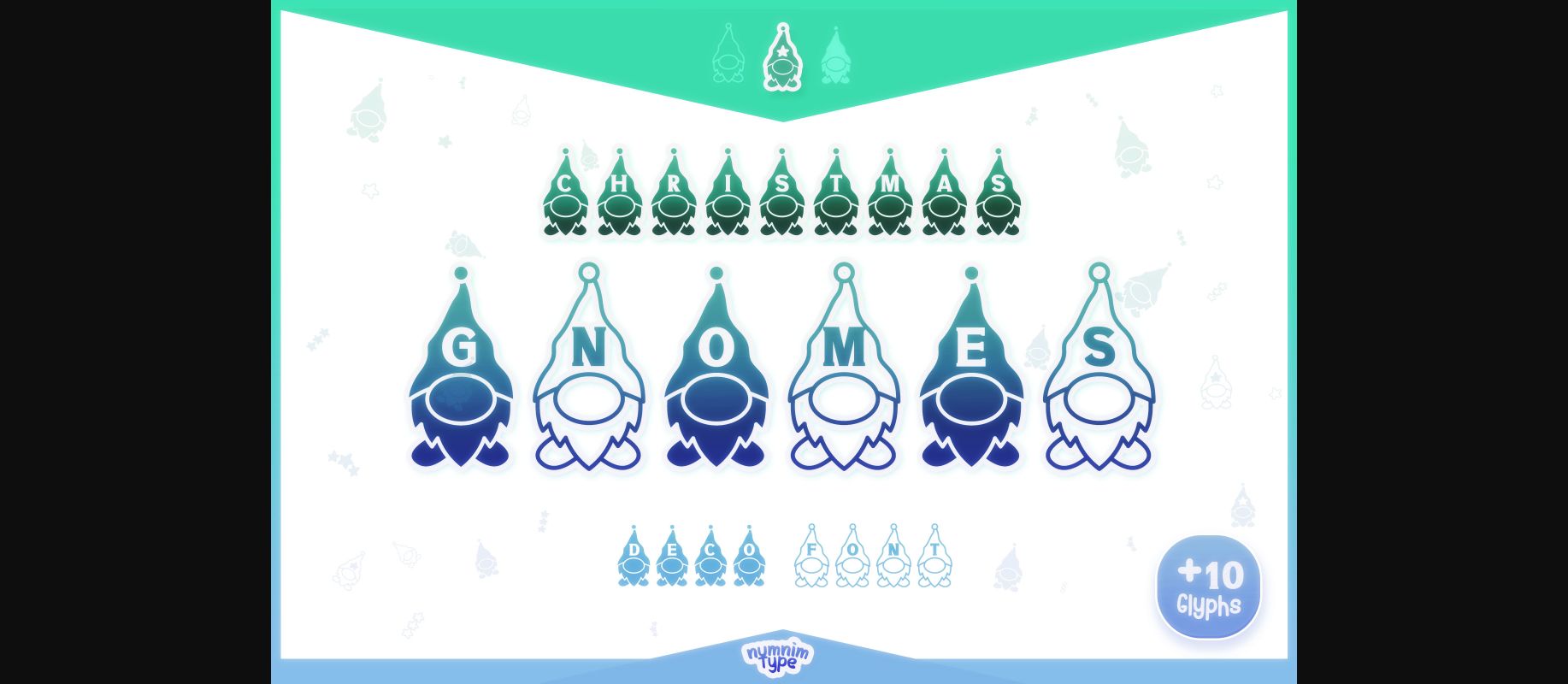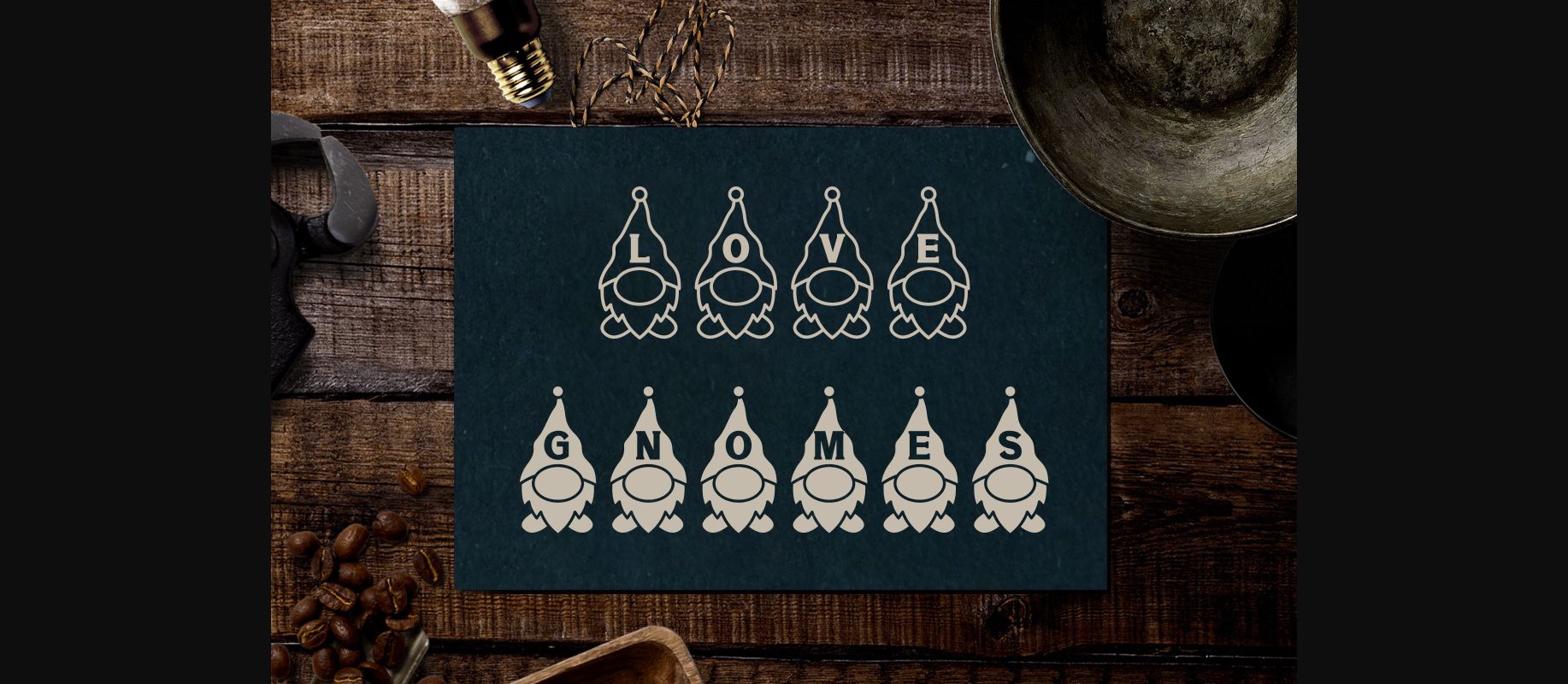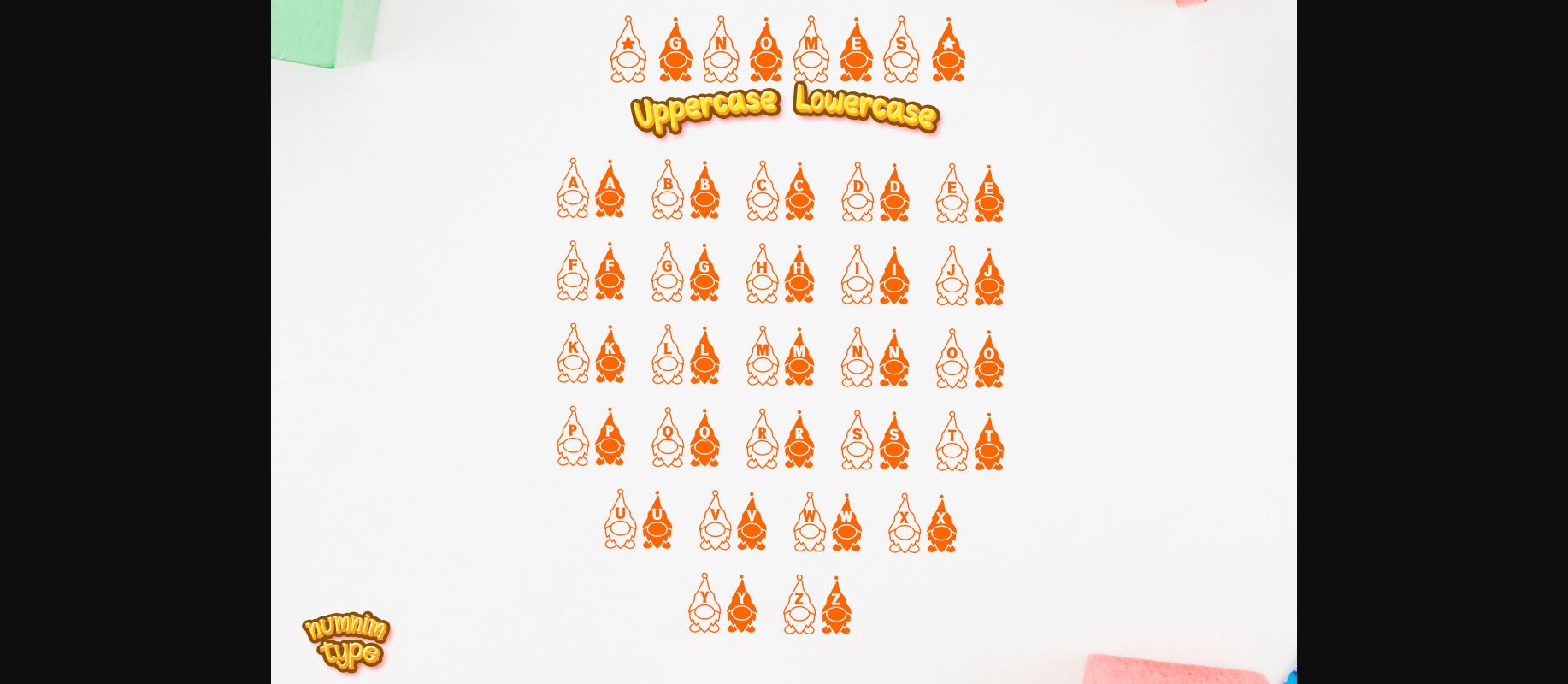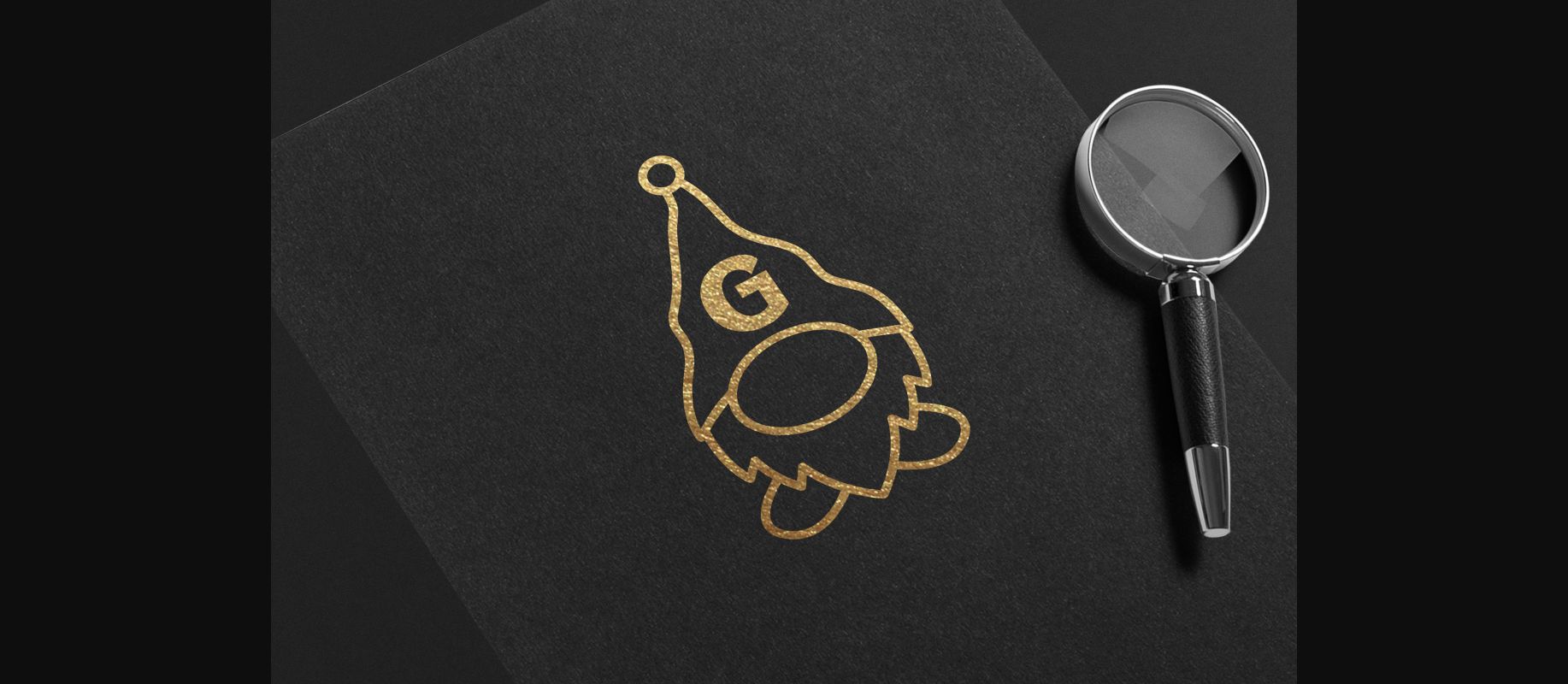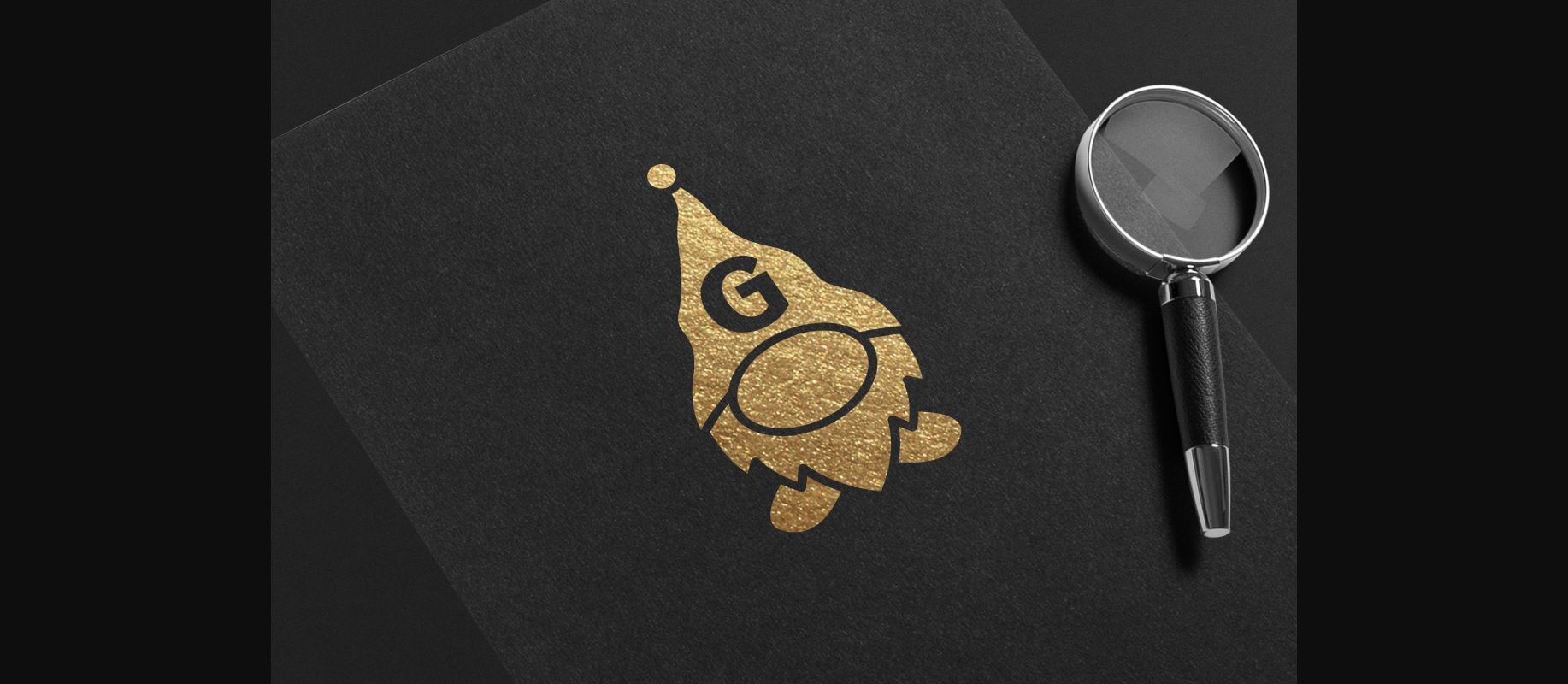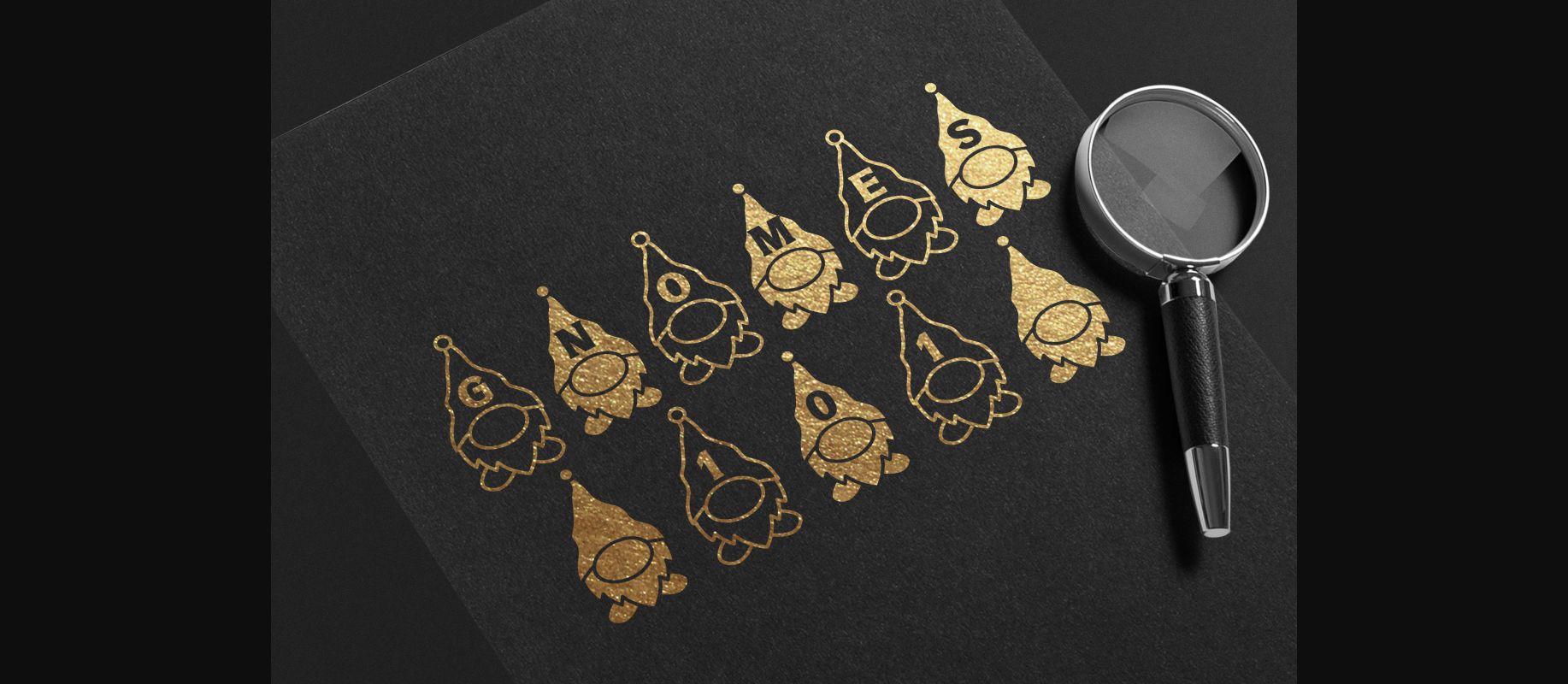
About Christmas Gnomes Font
Christmas Gnomes is a cool and uniquely designed decorative font, created particularly for the Christmas Day. Each character is fun and playful, perfect for adding a bold accent to your designs!